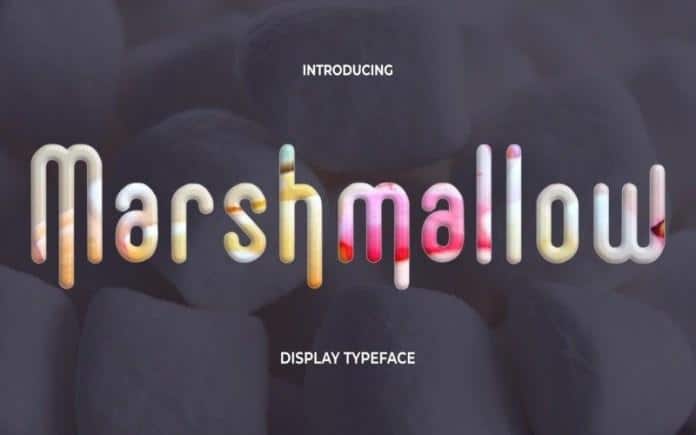
Marshmallow Font famous logos of Technology and brands that have very strong characteristics, very suitable for posters, t-shirt, packaging, branding, logotype and more.
Marshmallow with strong and challenging nuances. very suitable for the title, typography, clothes, Poster, magazines, brochures, packaging, Websites and much more for your design needs, making your designs more modern and professional